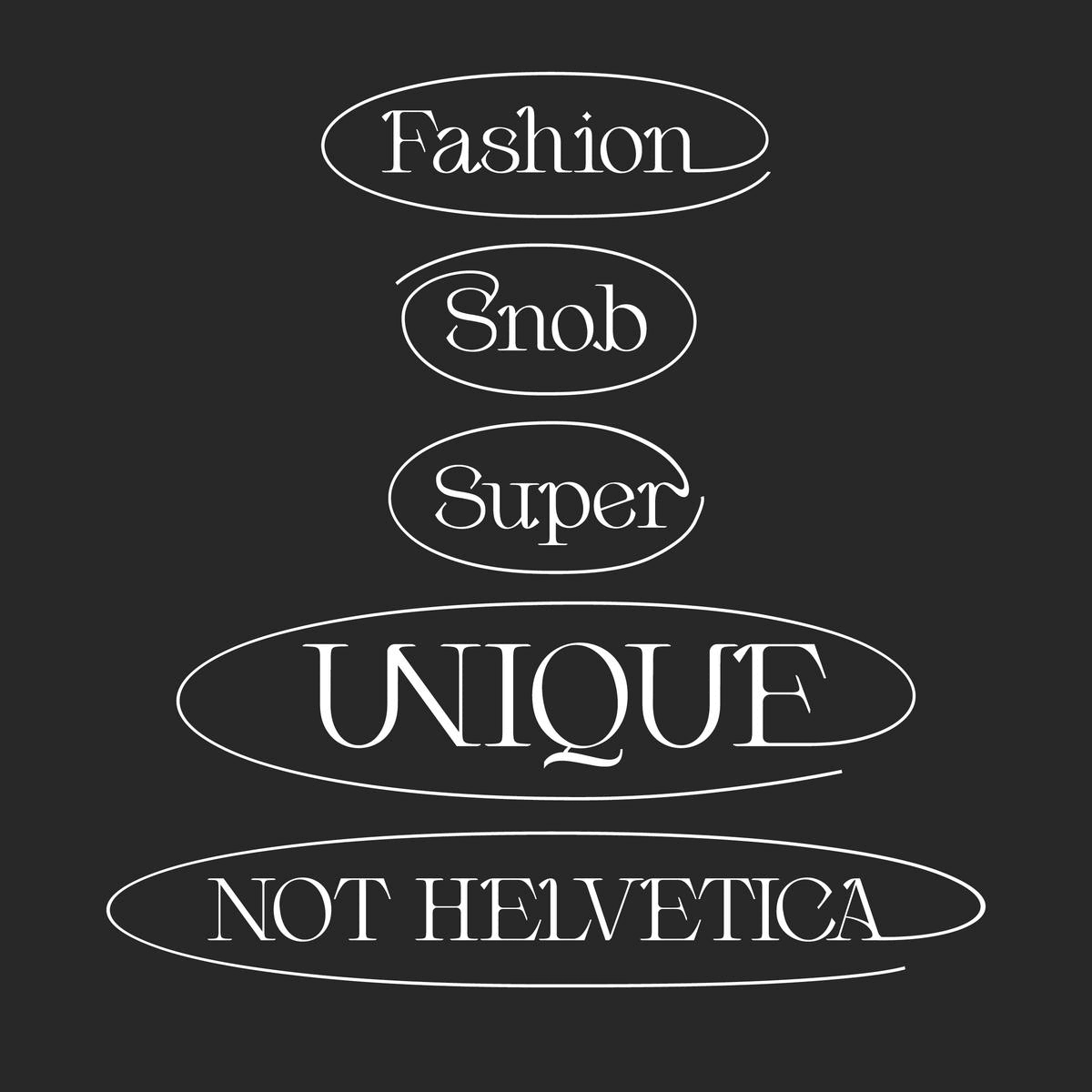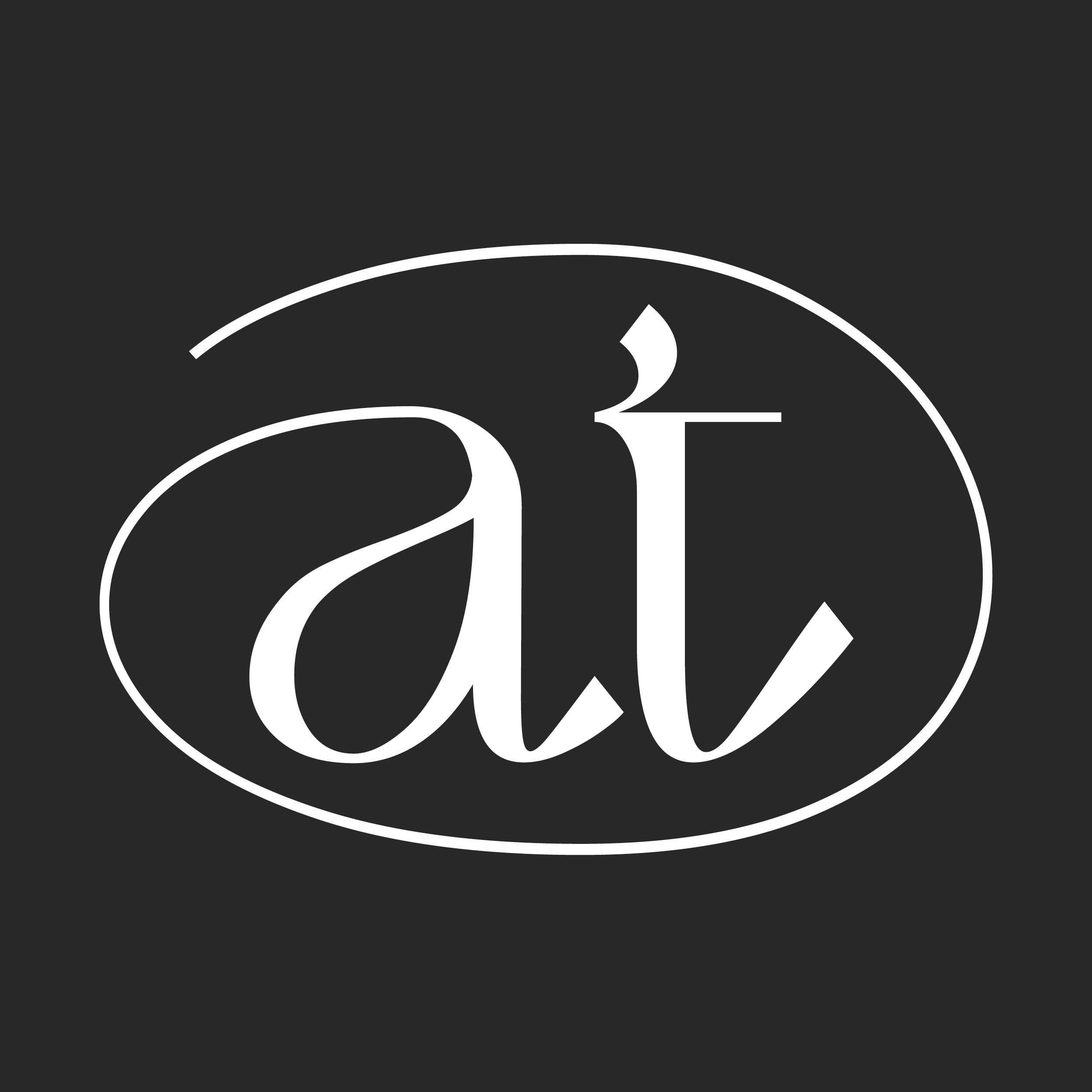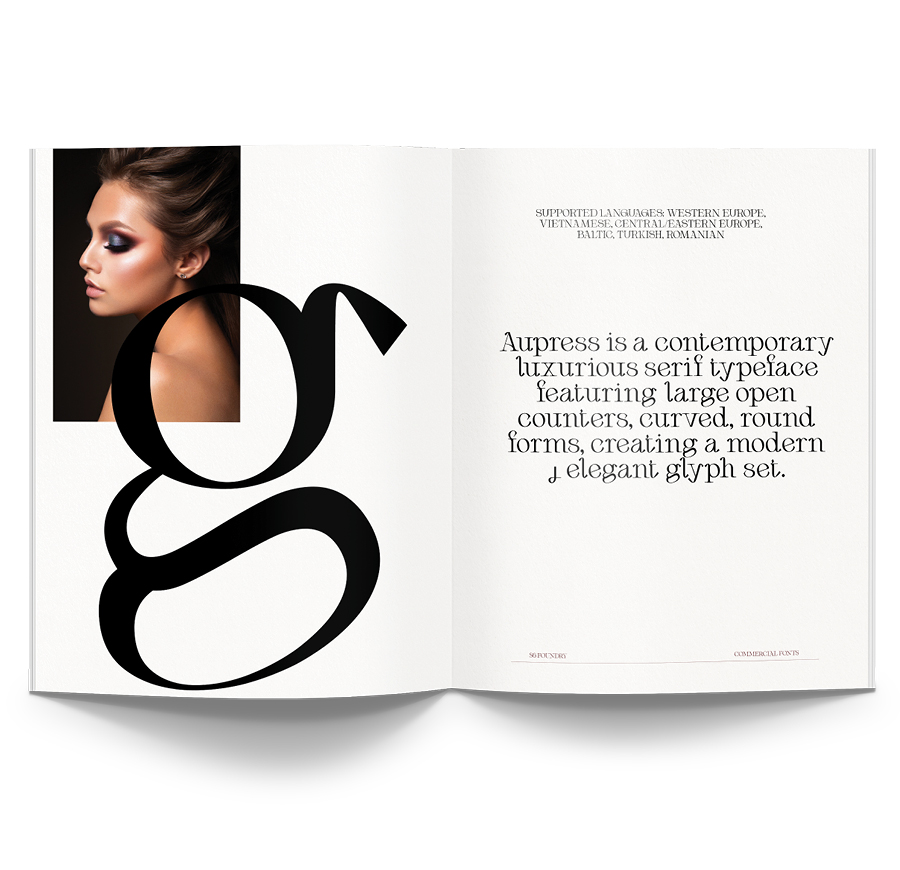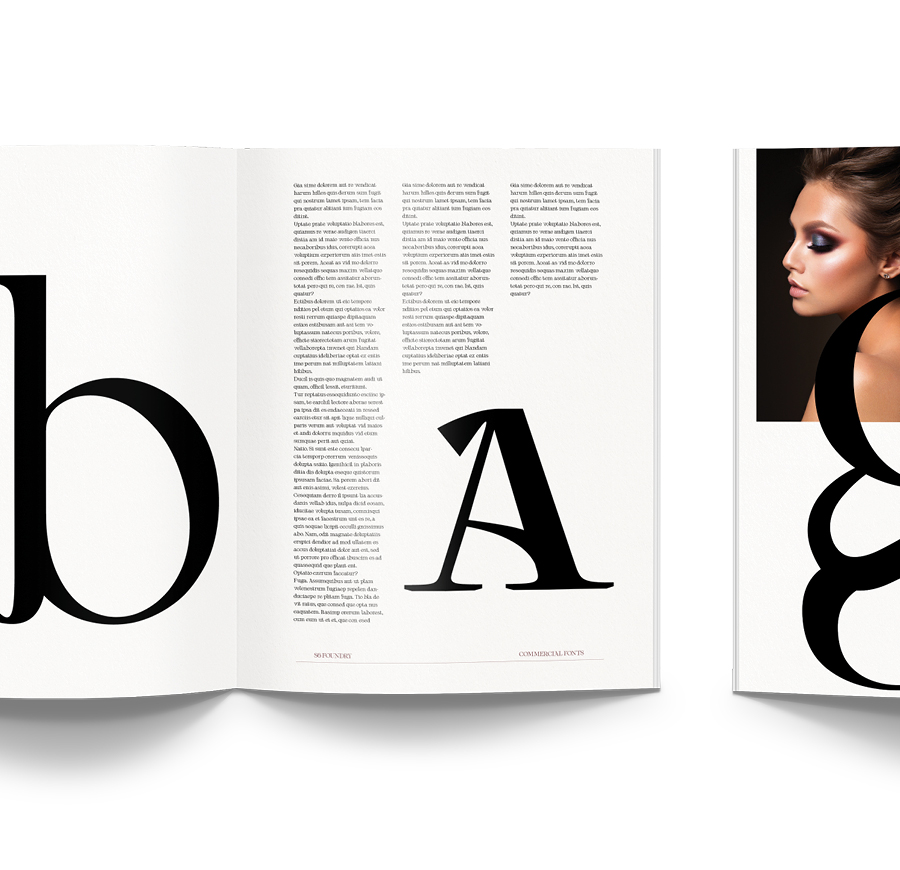
Aupress is a contemporary luxurious serif typeface featuring large open counters, and curved, round forms, creating a modern & elegant glyph set. Designed to be a stylish modern face perfect for communication and branding projects.
Aupress supports up to 72 different languages such as English, French, Turkish, Kurdish (Latin), Azerbaijani (Latin), Romanian, Hungarian, Kazakh (Latin), Swedish, Belarusian (Latin), Finnish, Latvian, Irish, Estonian, Basque, and Vietnamese in Latin and other scripts.